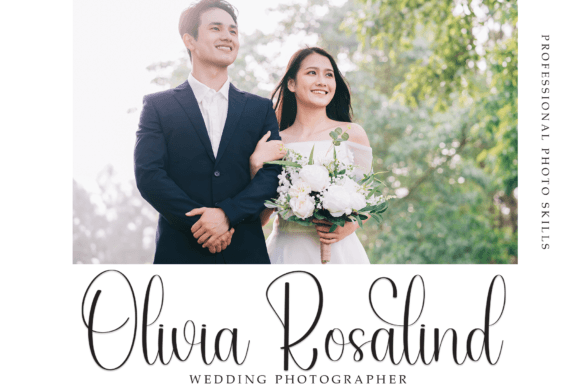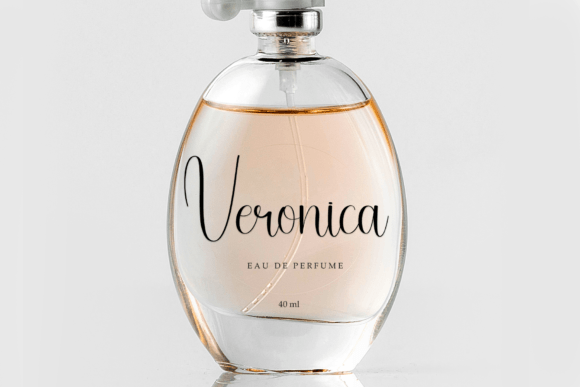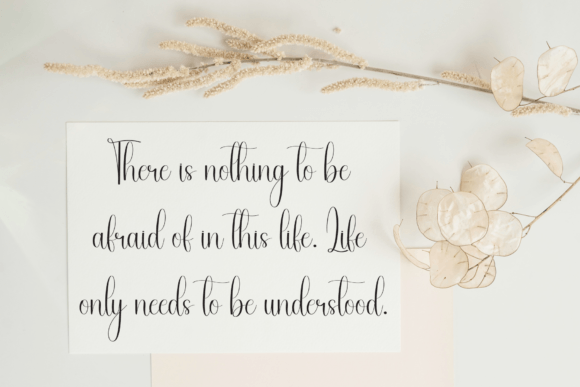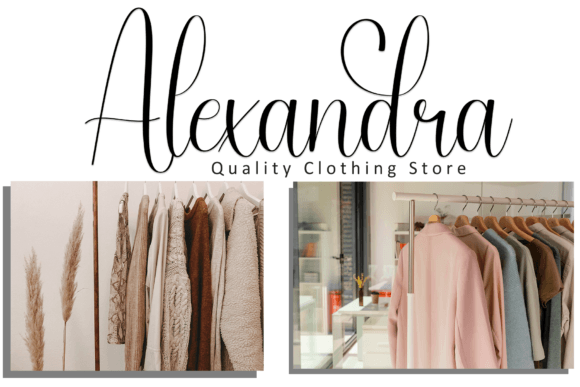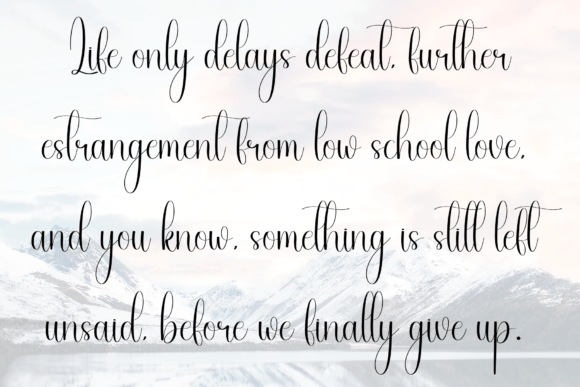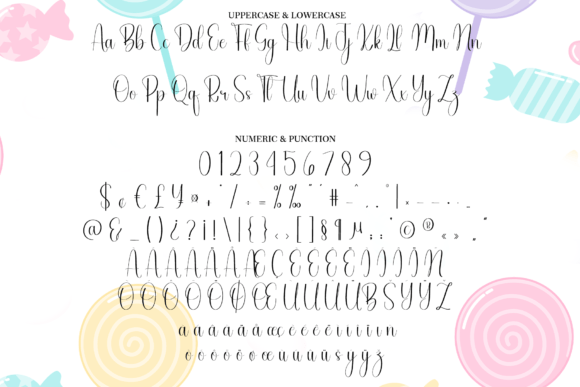
The Sweetest Addition to Your Design Arsenal: Candy Font
You know that moment when you’re brainstorming ideas for a special project, and suddenly a spark of creativity hits you? Maybe it’s a wedding invitation, a birthday card, or a social media post that needs a little extra oomph. For designers, finding the perfect font can make all the difference in bringing a design to life. And that’s where Candy Font comes in – a sweet and friendly handwritten font that’s sure to add a touch of warmth and personality to any project.
With its fresh and casual vibe, Candy Font is perfect for designers looking to add a little whimsy and charm to their designs. Whether you’re working on a wedding invitation, a birthday card, or any other design that needs a lovely touch, Candy Font is the perfect choice. Its versatility and elegance make it a valuable addition to any designer’s toolkit, and its natural charm is sure to delight clients and audiences alike.
- Unique Characteristics: Candy Font features a playful, cursive design with swashes and flourishes, making it ideal for creative and decorative purposes
Candy Font Review
Candy Font is a playful, whimsical font that’s perfect for adding a touch of sweetness to your designs. ✨ It’s great for creating eye-catching headings and titles, and its unique characters will add a personal touch to your branding.
- ✨ Unique and playful characters that will add personality to your design
- ✨ Great for creating eye-catching headings and titles
- ✨ Can be used for branding, packaging, and other creative projects
- ⚠️ May not be suitable for formal or professional designs
- ⚠️ Can be difficult to read in smaller font sizes
- ⚠️ Limited character set may cause issues with certain languages
Overall, I think Candy Font is a great addition to any designer’s toolkit. It’s perfect for creating fun and playful designs, and its unique characters will add a personal touch to your branding. However, it’s not suitable for every project, and you should carefully consider the limitations before using it.
Tips for Getting the Most Out of Candy Font
Use Candy Font for:
1. Creating eye-catching headlines and titles.
2. Adding a playful touch to children’s party invitations and decorations.
3. Designing social media graphics and advertisements for food and beverage brands.
Candy Font is commonly used in:
1. Food and beverage branding.
2. Children’s party invitations and decorations.
3. Social media graphics and advertisements.
Alternatives to Candy Font
Great Vibes is a fun, modern, and elegant script font. It’s perfect for designs that need a touch of sophistication and playfulness. Great Vibes is great for wedding invitations, social media graphics, and advertising materials.
Compared to Candy Font, Great Vibes is more elegant and less cartoonish. It’s a great choice for designers who want to add a touch of whimsy without being too childish.
Lobster is a bold, cursive font that’s perfect for designs that need a lot of personality. It’s great for headings, titles, and other text elements where you want to grab the user’s attention. Lobster is ideal for restaurants, bars, and other food-related businesses.
Compared to Candy Font, Lobster is more dramatic and attention-grabbing. It’s a great choice for designers who want to create a bold and eye-catching visual identity.
Pacifico is a beautiful, elegant script font that’s perfect for designs that need a touch of sophistication. It’s great for wedding invitations, luxury brands, and other high-end materials. Pacifico is ideal for designers who want to create a sense of calm and serenity.
Compared to Candy Font, Pacifico is more refined and less playful. It’s a great choice for designers who want to add a touch of elegance without being too boring.
The recommended font size for Candy Font is between 12-24 points, depending on the design application and intended use. For optimal readability, use a line height of at least 1.2-1.5 times the font size. This will ensure that the text remains legible and visually appealing, even when used in large blocks of text.